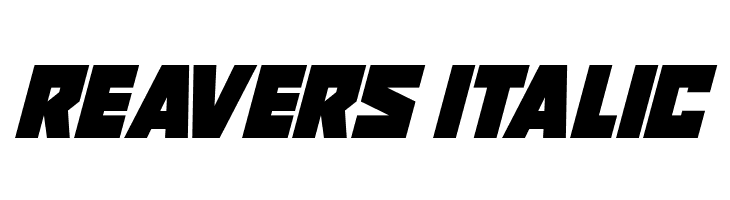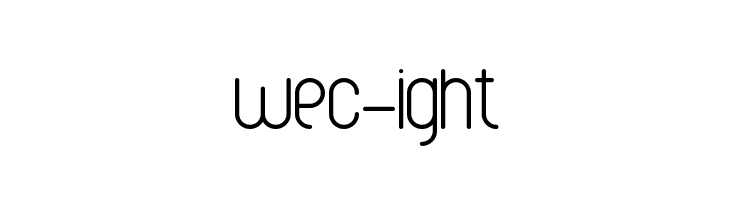
( Bonez Designz - Fie Clarke - bonezdesignz.com )
A tactile writing system using raised dot patterns for visually impaired readers.
( Carlos Horacio Valera )
A modern, rounded font with uniform stroke width and excellent readability.
( Darrell Flood )
A bold, impactful font with strong, thick strokes and geometric shapes.
( Darrell Flood )
A bold, italic font with a dynamic and energetic style.
( Darrell Flood )
A bold, angular italic font with a dynamic and aggressive style.
( Darrell Flood )
A bold, geometric font with a strong industrial feel.
( Darrell Flood )
A bold, italicized font with a futuristic and angular design.
( Darrell Flood )
A bold, geometric font with sharp angles and a futuristic style.
( Darrell Flood )
A bold, italic font with a dynamic and modern style.